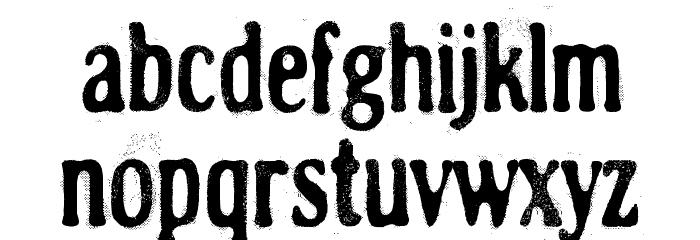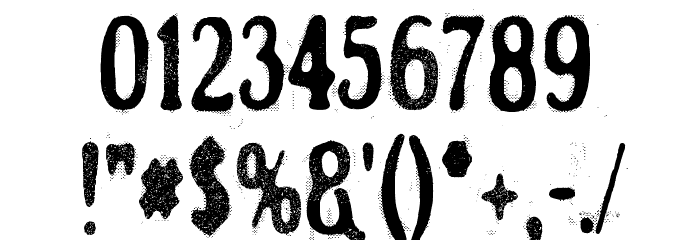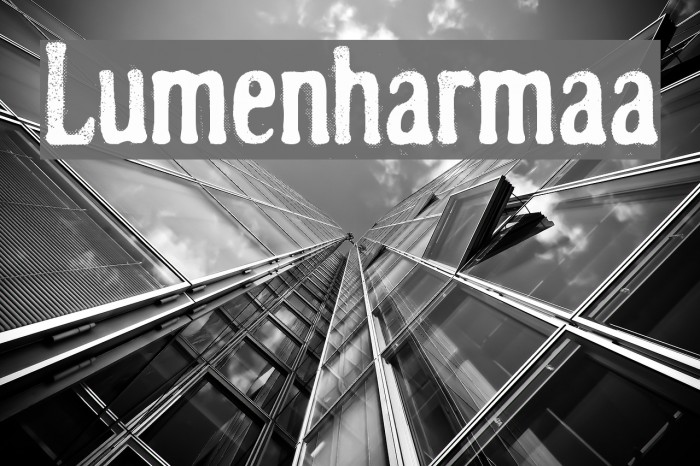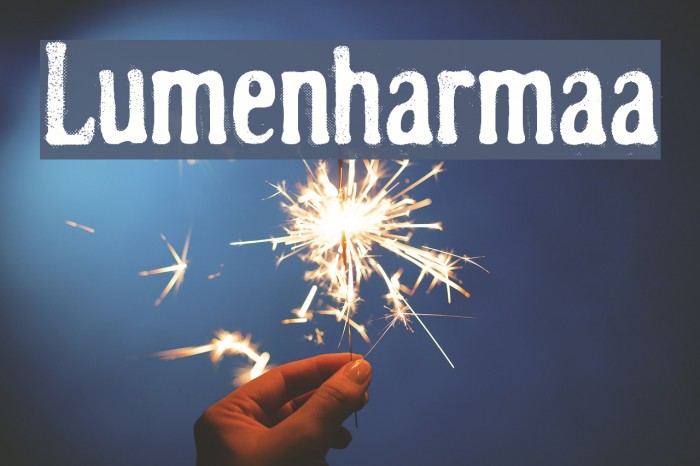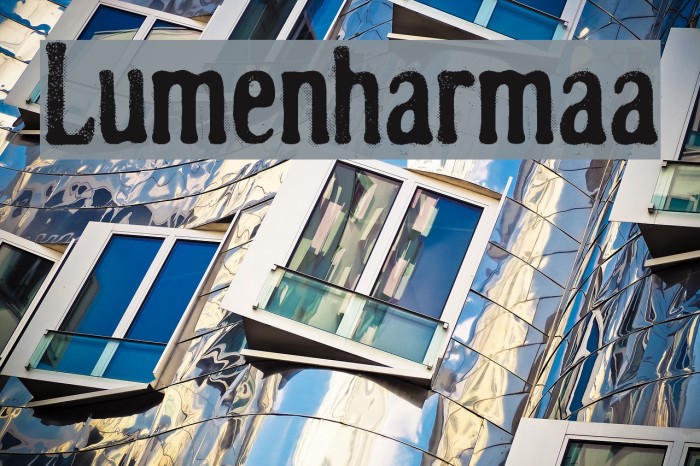
Lumenharmaa Font
This font features a bold and rugged appearance with a distressed texture that gives it a vintage and worn look. The characters are thick and sturdy, with rounded edges that soften the overall impact. The uppercase and lowercase letters maintain a consistent style, while the numbers and special characters complement the alphabet with the same distressed effect. The font's unique texture makes it stand out, adding a tactile quality that is both eye-catching and distinctive. Its boldness and texture suggest a sense of history and character, making it suitable for projects that aim to convey a sense of authenticity and nostalgia.
A bold, distressed font with a vintage, rugged texture.
- Proposed Projects: Ideal for vintage-themed designs, posters, branding for rustic products, and any project requiring a touch of nostalgia.
- Overall Style: Vintage